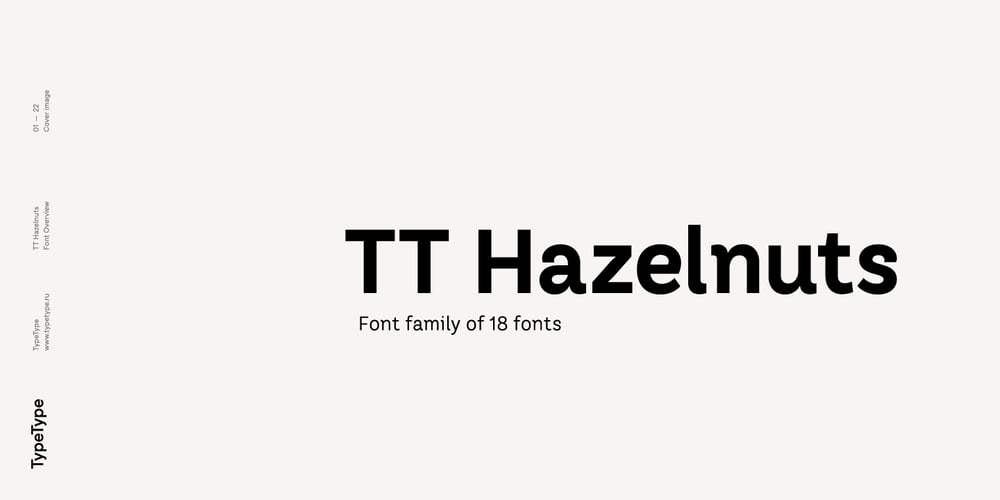
TT Hazelnuts
TT Hazelnuts font
TT Hazelnuts Font Family was designed by Ivan Gladkikh, TypeType Team and published by TypeType. TT Hazelnuts contains 18 styles and family package options. TT Hazelnuts useful links:Specimen PDF | Graphic presentation | Customization optionsAbout TT Hazelnuts: TT Hazelnuts is a display sans-serif font family containing a set of elegant and delicate decorative elements. Initially the family was designed for highly specialized areas, but we’ve decided to extend the number of typefaces and to make the family more universal. Despite its geometric essence, TT Hazelnuts reflects a touch of human hand—you can take a calligraphic tool and, by turning it, draw pretty much the whole font. TT Hazelnuts font family is perfect for small text arrays, for instance, for fashion or advertising industries, and will also fit perfectly into layout of longer and more complex typographic systems thanks to a large variety of font weights (Thin, ExtraLight, Light, Regular, Medium, Bold, ExtraBold, Black, Heavy) and its true italics. It has already become a good tradition to include broad support of OT features into our new fonts. TT Hazelnuts is not an exception, it uses a large number of useful features: ordn, sinf, sups, numr, dnom, tnum, onum, frac, case.FOLLOW US:Instagram | Facebook | WebsiteTT Hazelnuts language support: Acehnese, Afar, Albanian, Alsatian, Aragonese, Arumanian, Asu, Aymara, Banjar, Basque, Belarusian (cyr), Bemba, Bena, Betawi, Bislama, Boholano, Bosnian (cyr), Bosnian (lat), Breton, Bulgarian (cyr), Cebuano, Chamorro, Chiga, Colognian, Cornish, Corsican, Cree, Croatian, Czech, Danish, Embu, English, Erzya, Estonian, Faroese, Fijian, Filipino, Finnish, French, Friulian, Gaelic, Gagauz (lat), Galician, German, Gusii, Haitian Creole, Hawaiian, Hiri Motu, Hungarian, Icelandic, Ilocano, Indonesian, Innu-aimun, Interlingua, Irish, Italian, Javanese, Judaeo-Spanish, Kalenjin, Karachay-Balkar (lat), Karaim (lat), Karakalpak (lat), Kashubian, Khasi, Khvarshi, Kinyarwanda, Kirundi, Kongo, Kumyk, Kurdish (lat), Ladin, Latvian, Laz, Leonese, Lithuanian, Luganda, Luo, Luxembourgish, Luyia, Macedonian, Machame, Makhuwa-Meetto, Makonde, Malay, Manx, Maori, Mauritian Creole, Minangkabau, Moldavian (lat), Montenegrin (lat), Mordvin-moksha, Morisyen, Nahuatl, Nauruan, Ndebele, Nias, Nogai, Norwegian, Nyankole, Occitan, Oromo, Palauan, Polish, Portuguese, Quechua, Rheto-Romance, Rohingya, Romanian, Romansh, Rombo, Rundi, Russian, Rusyn, Rwa, Salar, Samburu, Samoan, Sango, Sangu, Scots, Sena, Serbian (cyr), Serbian (lat), Seychellois Creole, Shambala, Shona, Slovak, Slovenian, Soga, Somali, Sorbian, Sotho, Spanish, Sundanese, Swahili, Swazi, Swedish, Swiss German, Tagalog, Tahitian, Taita, Tatar, Tetum, Tok Pisin, Tongan, Tsonga, Tswana, Turkish, Turkmen (lat), Ukrainian, Uyghur, Vepsian, Volapük, Võro, Vunjo, Xhosa, Zaza, Zulu.